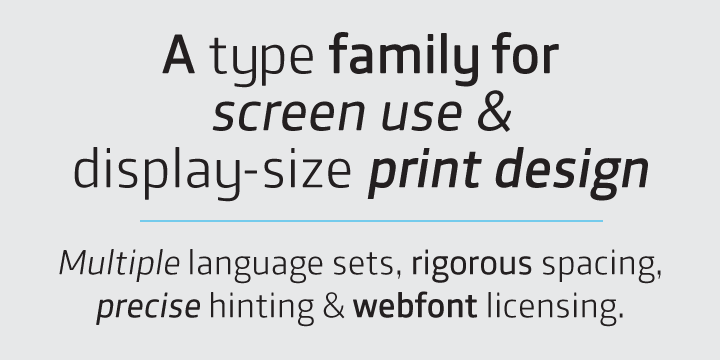
Entity
Entity is a sans serif font family. This typeface has six styles and was published by Wordshape.
The Entity family is a series of six typefaces for screen use, text setting and display-size design.
The technical forms of the characters are balanced with slightly rounded corners and a humanistic touch to enhance readability.
True italics, affordable pricing, detailed hinting, multiple language support and webfont licensing options ensure that users get the absolute most out of the Entity family.
The Entity family is a series of six typefaces for screen use, text setting and display-size design. The technical forms of the characters are balanced with slightly rounded corners and a humanistic touch to enhance readability. True italics, affordable pricing, detailed hinting, multiple language support and webfont licensing options ensure that users get the absolute most out of the Entity family.